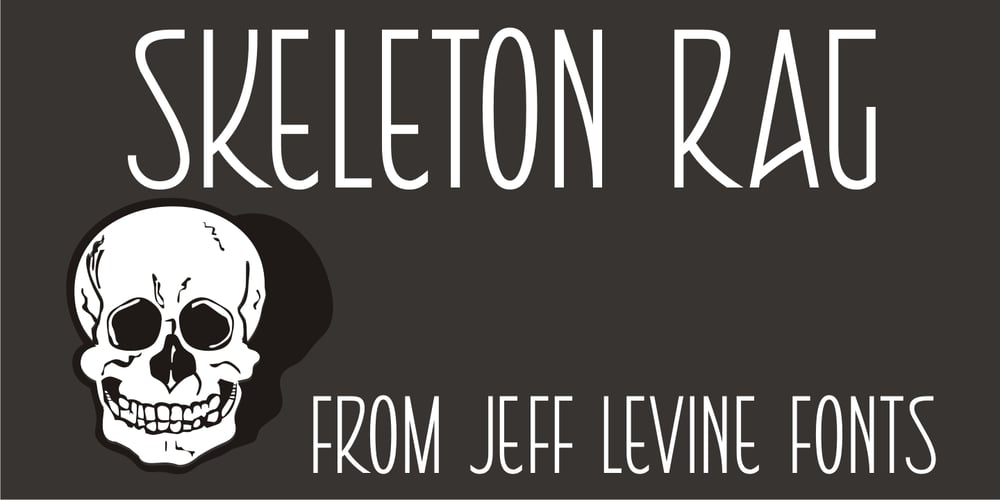
Skeleton Rag JNL
Skeleton Rag JNL font
Skeleton Rag JNL Font Family was designed by Jeff Levine and published by Jeff Levine. Skeleton Rag JNL contains 1 styles and family package options. Art Nouveau lettering on the cover of sheet music for the 1911 song “The Skeleton Rag” (by Edward Madden and Percy Wenrich) is both the lettering inspiration and namesake for Skeleton Rag JNL.